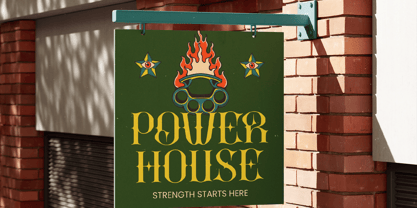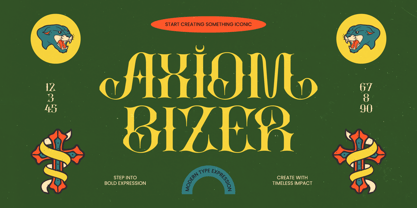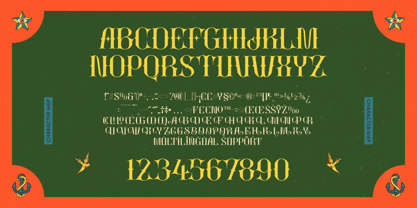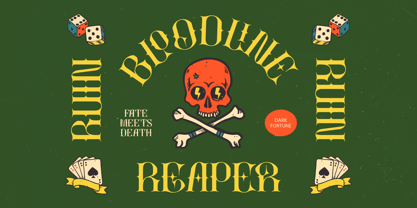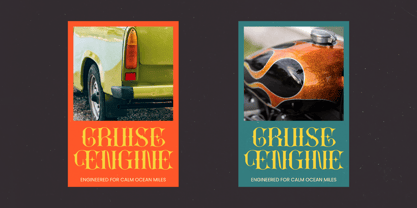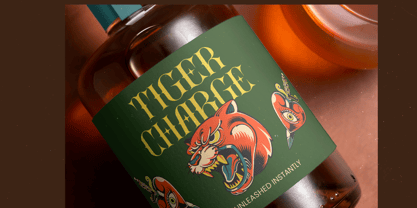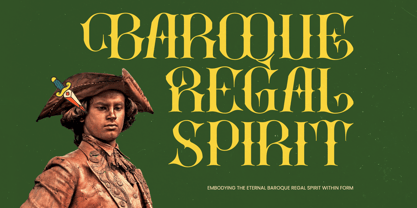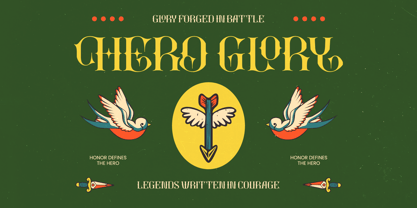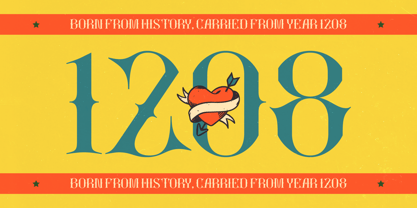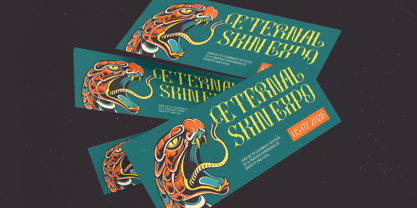
Axiom Bizer
A família de fontes Axiom Bizer foi desenhada por Heru Utama Putra e publicada pela Timelesstype Studio. Axiom Bizer contém 2 estilos e opções de pacote familiar. Saiba mais sobre esta família
Evoke a sense of timeless sophistication with Axiom Bizer - Vintage All Caps Serif, a typeface designed to command attention through its bold serif architecture and classic allure. This font masterfully blends Victorian elegance with a modern high-contrast finish, making it the definitive choice for designers seeking a premium aesthetic. By integrating Axiom Bizer - Vintage All Caps Serif into your toolkit, you gain access to a visually striking asset that elevates any layout from standard to extraordinary.